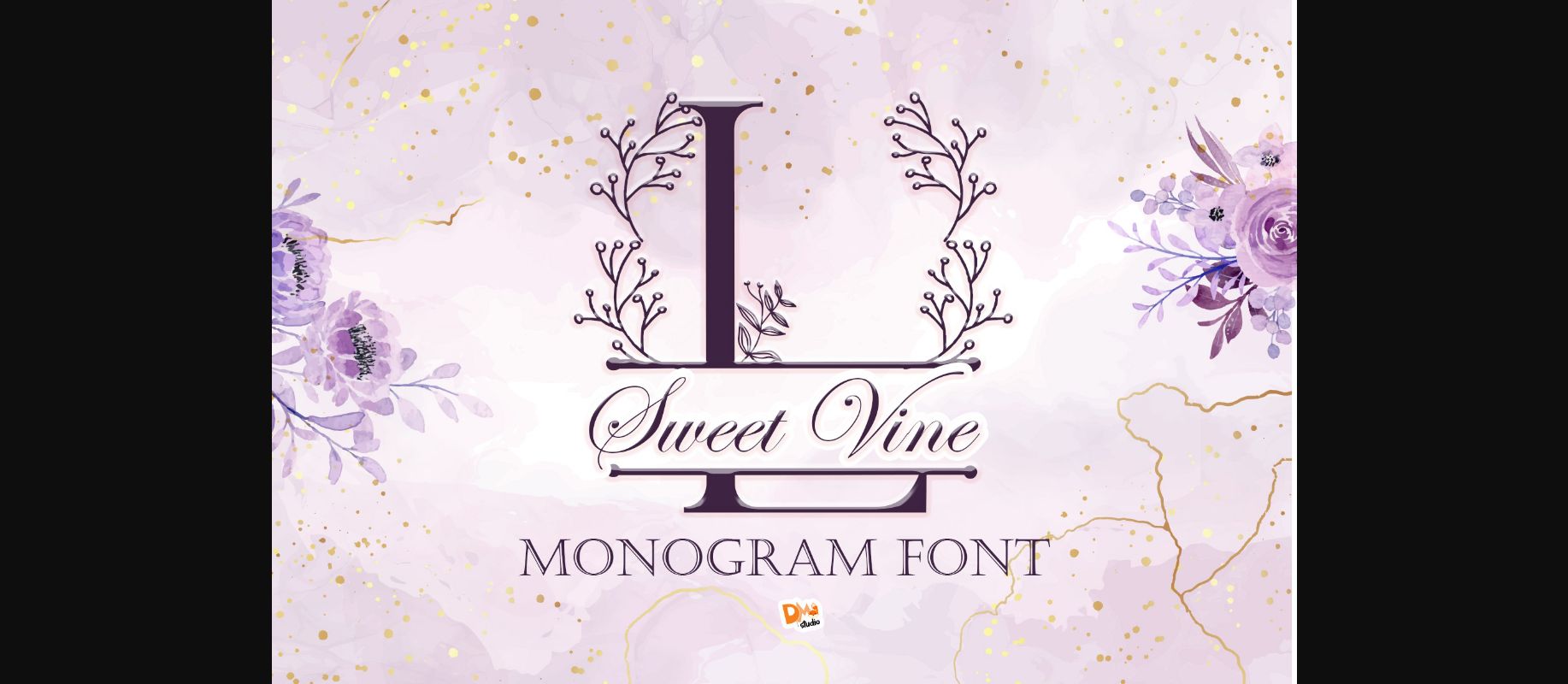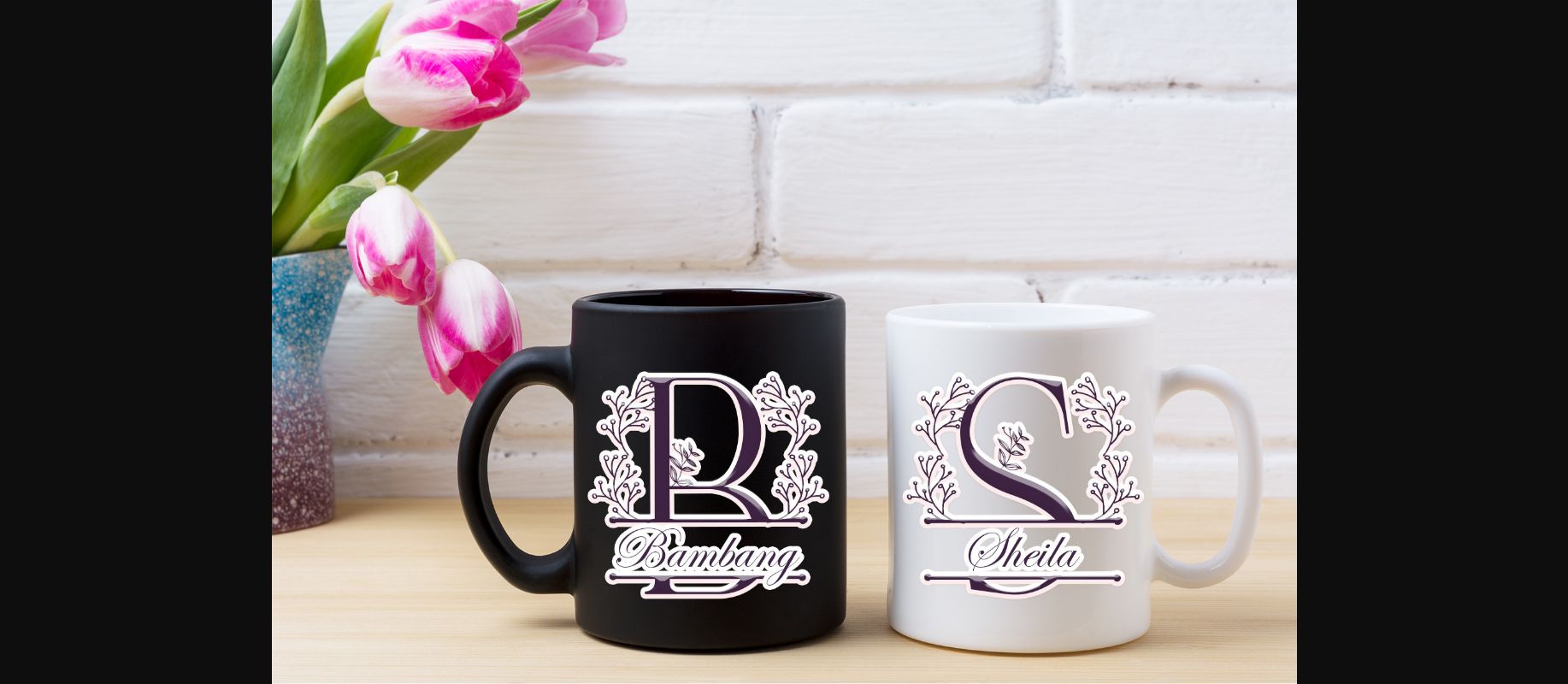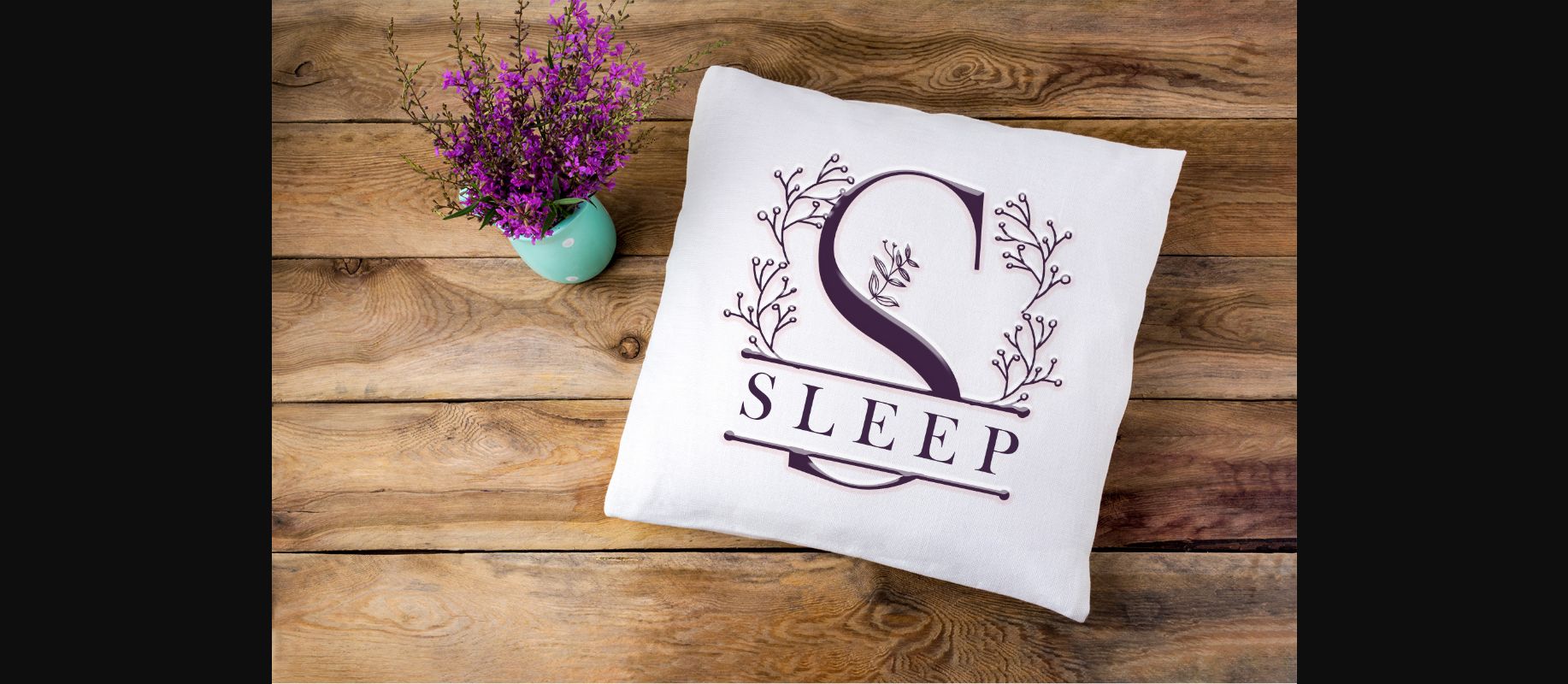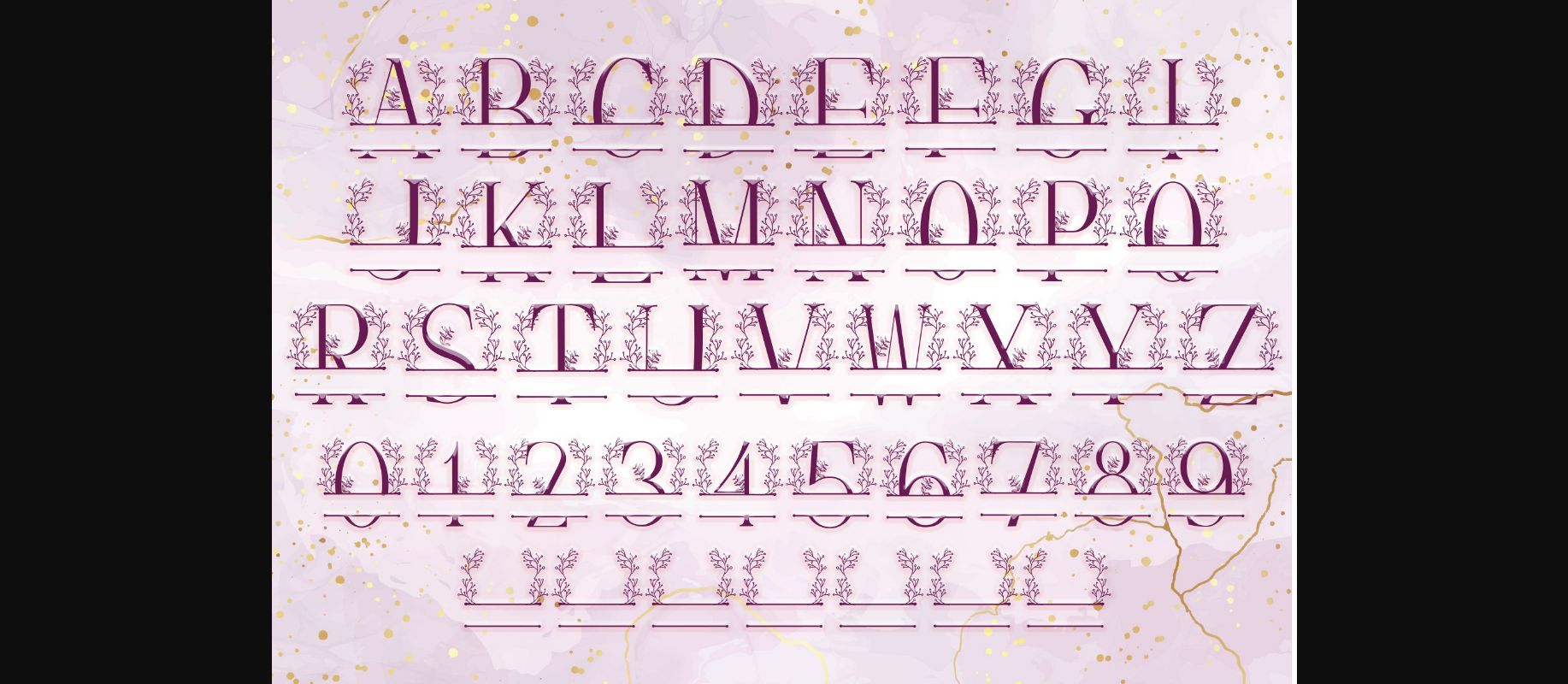
Sweet Vine Monogram Font
About Sweet Vine Monogram Font
Sweet Vine Monogram is the perfect combination of bold letters and elegant, delicate decorations. Add this romantic and lovely looking font to each of your love letters, wedding invitations or favorite design ideas, and you will be astounded by the outcome.